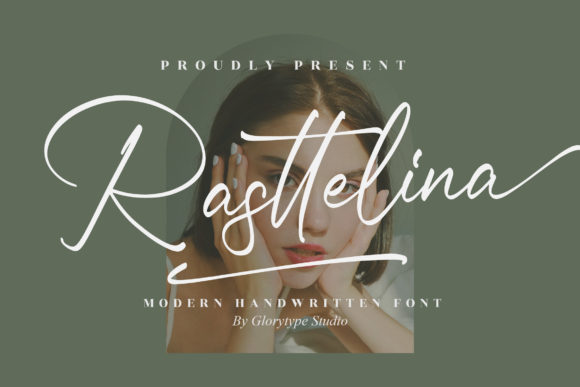
Rasttelina Font
Rasttelina is an elegant script font with a contemporary atmosphere and impeccable form, inspired by timeless classic calligraphy. This font is PUA encoded which means you can access all glyphs and swashes with ease!